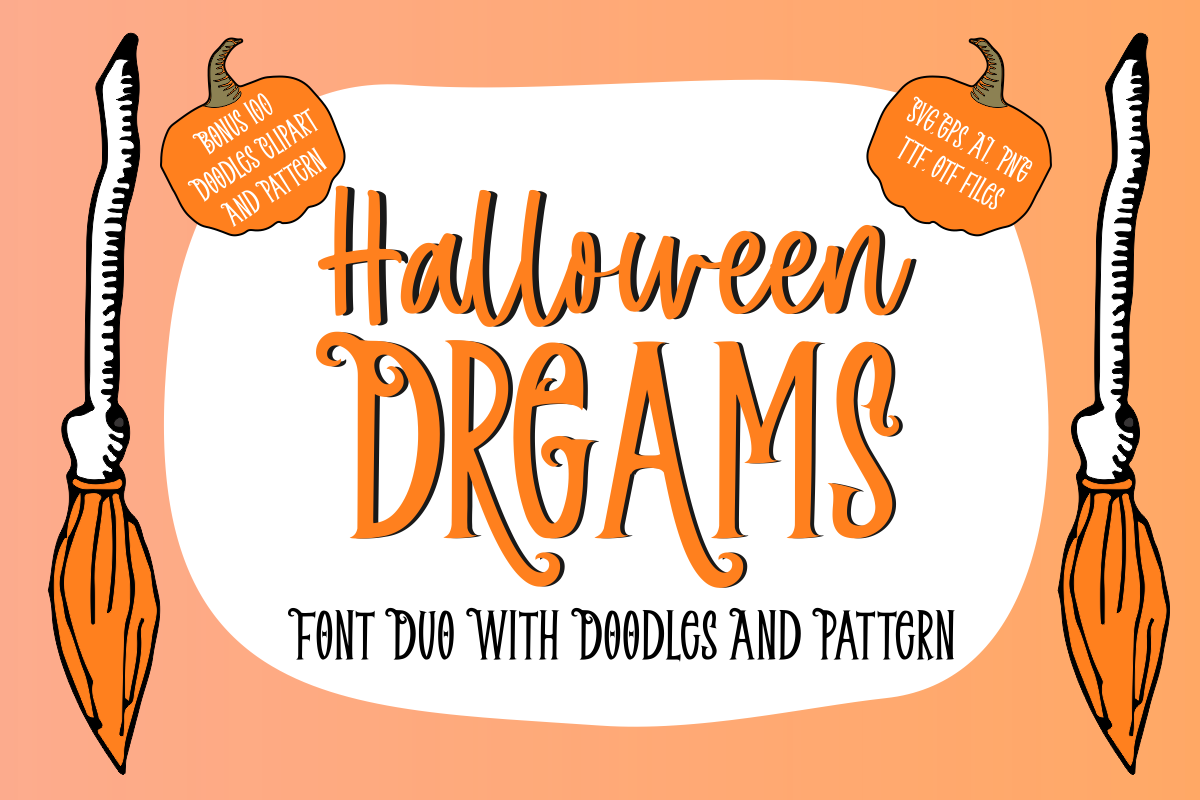
Halloween Dreams | A Font Duo
Halloween Dreams - Font is a font duo ( Display & Script ) font. You will also get doodles, clipart, and patterns. which will be suitable for your Halloween design needs or others. Also, it's perfect for logo, craft, branding, title, social media posts, advertisements, product packaging, product designs, label, photography, watermark, special event, magazine, web designs, etc.